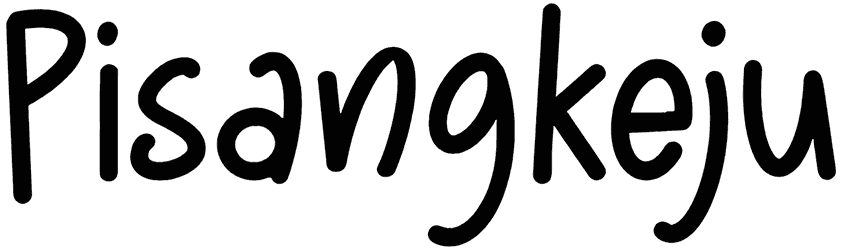
Pisangkeju Font
The Pisangkeju is a casual handwritten font that has a fun feeling. This font has a playful design and can be helpful for different cases, such as posters, brochures, and commercial packaging; however, it does not support numbers.
The Pisangkeju font’s letters are soft-edged with a semi-curvy shape that makes this font seem interesting, especially on informal occasions. Thus, it grabs the viewer’s attention and helps you keep the subject in mind.